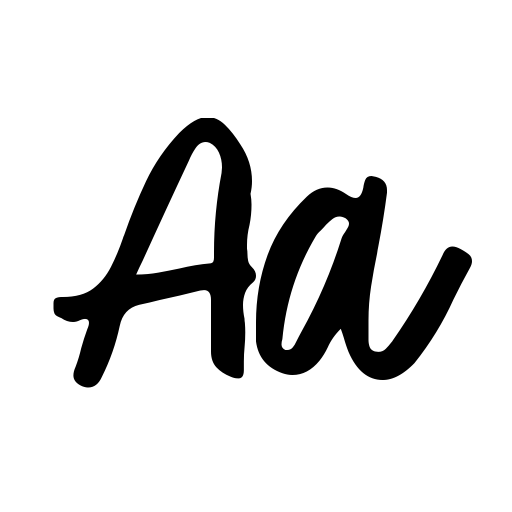
BlackJack is a lively and elegant script font characterized by its smooth, flowing strokes and balanced letterforms that mimic natural handwriting with a refined touch. Its medium weight and slightly condensed structure make it versatile for creative uses, lending a friendly and approachable feel ideal for branding, invitations, and casual yet stylish headlines. This font works well where a personal, handwritten charm is desired without sacrificing readability.
BlackJack Font